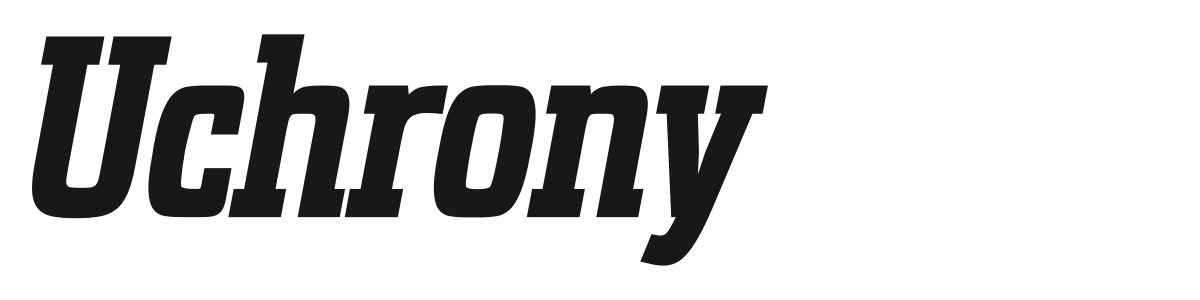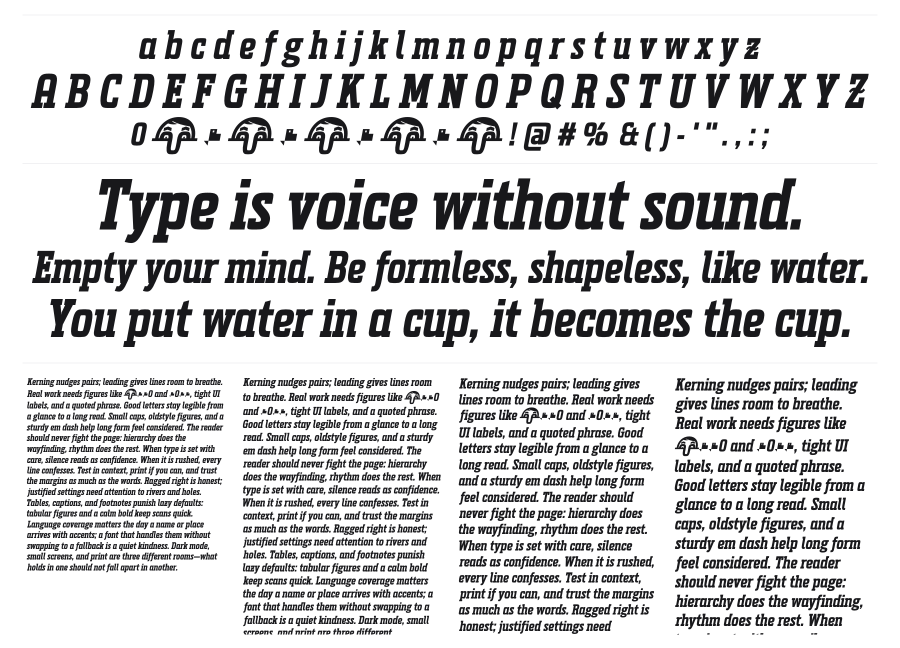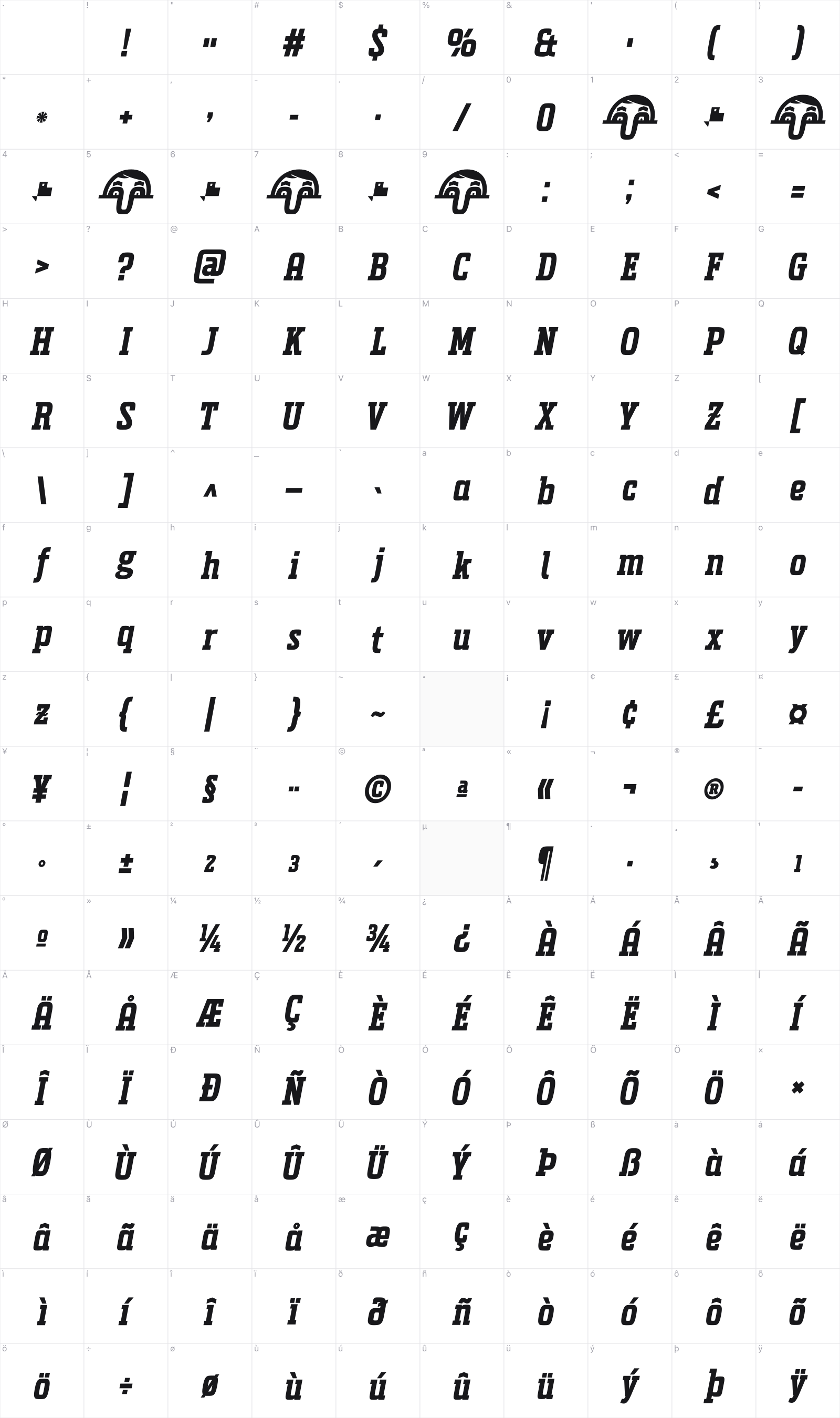
Uchrony
Uchrony is a condensed slab serif built from a single guiding principle: derive every proportion from the lowercase 'o'. That constraint gives the family remarkable morphological coherence across its six weights and three styles. The bold italic shown here is muscular and direct, equally at home in a sports headline or a news magazine spread.